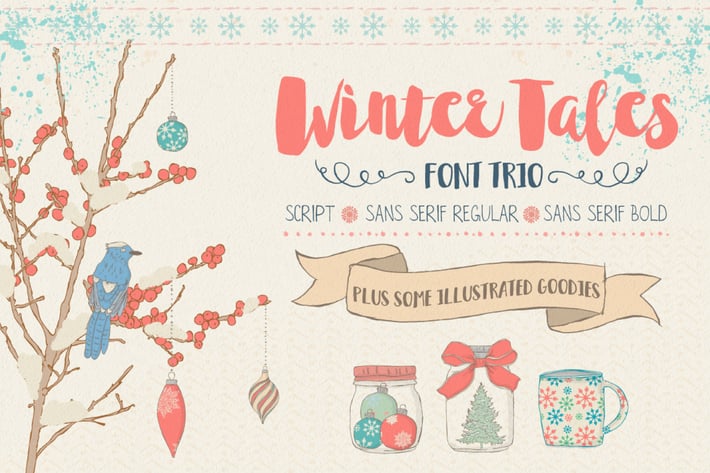
Winter Tales Font Trio + extras
Introducing my new cozy font family "Winter Tales".
This trio has script version, san serif regular and san serif bold.
It will be a lots of pleasure to create your designs with these three "guys".
For even more fun there are lots of hand drawn vector illustrations, seamless patterns,
swirls and textures included.
Fonts included in this family:
Script font
Sans Serif Regular